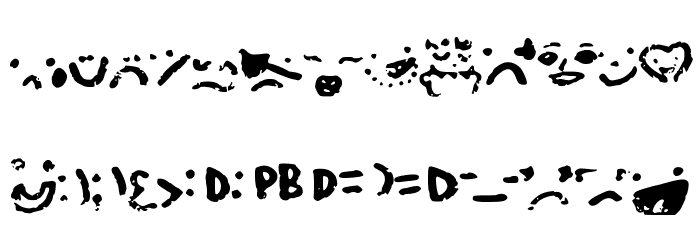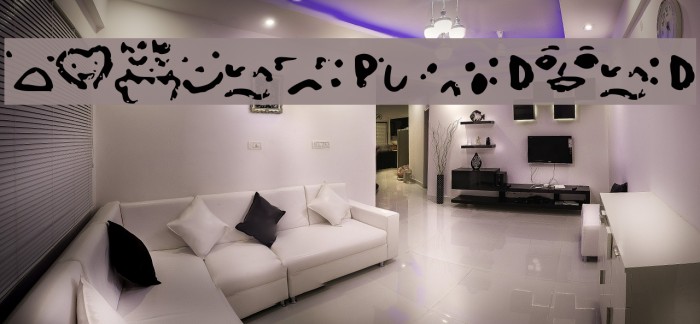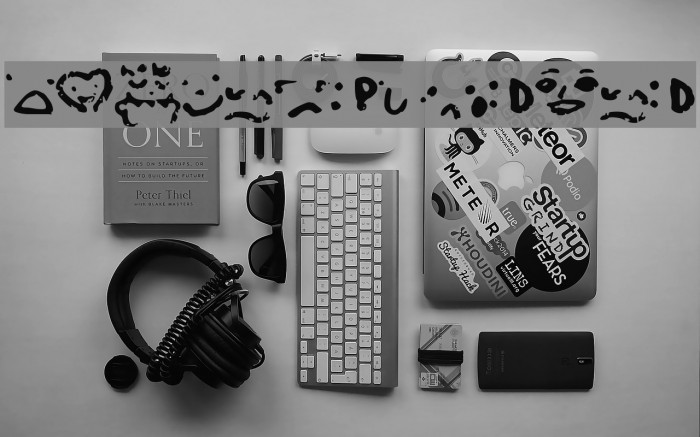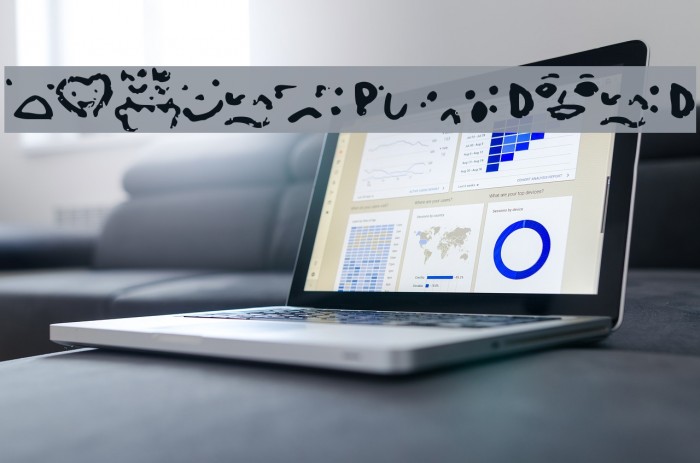
SmileysMarker Font
This is a playful and whimsical font composed entirely of various smiley faces and emoticons. Each character is creatively designed to represent different emotions and expressions, ranging from happy and excited to surprised and confused. The font is highly decorative, with each symbol crafted to convey a unique personality. The characters are bold and have a hand-drawn appearance, adding to their charm and appeal. This font is perfect for projects that require a fun and lighthearted touch, such as children's books, greeting cards, or playful branding materials.
A playful font made up of various expressive smiley faces and emoticons.
- Proposed Projects: Ideal for children's books, greeting cards, playful branding, and any project needing a fun, whimsical touch.
- Overall Style: Playful, Whimsical, Decorative
- Use Case: Decorative elements, Greeting cards, Children's materials